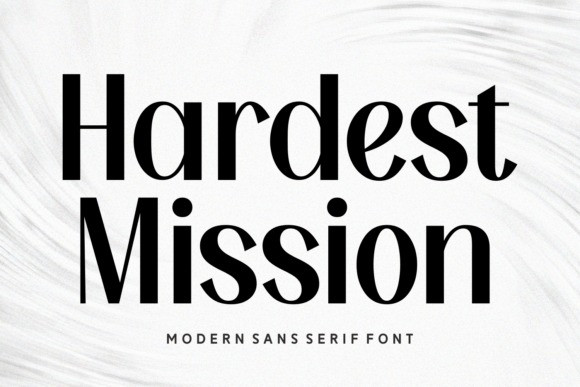
Hardest Mission Font
Hardest Mission Font, a modern sans serif font. The font itself is a sophisticated sans serif with a distinct contrast between thick and thin strokes, giving it a clean, elegant, and professional appearance.